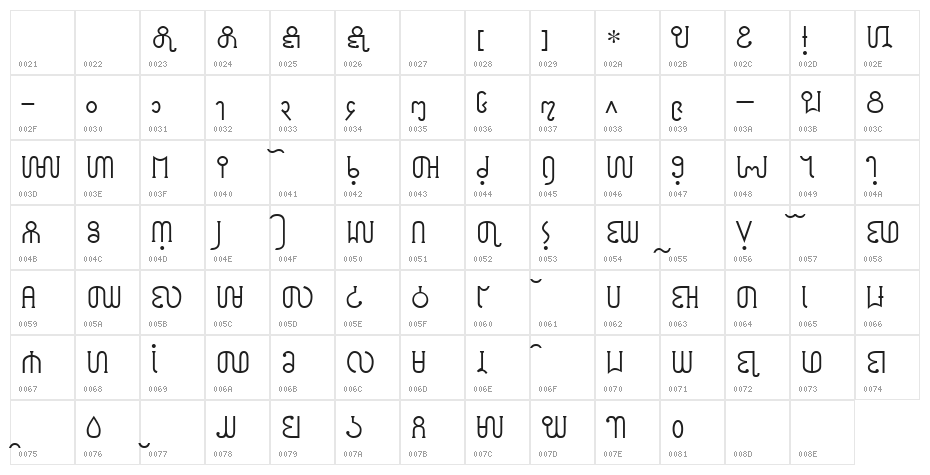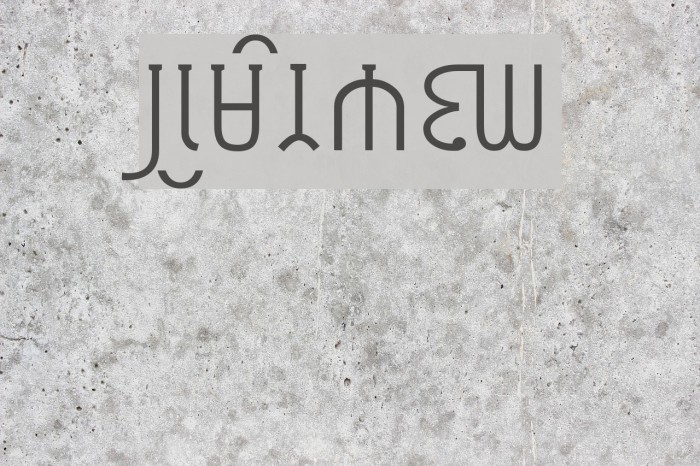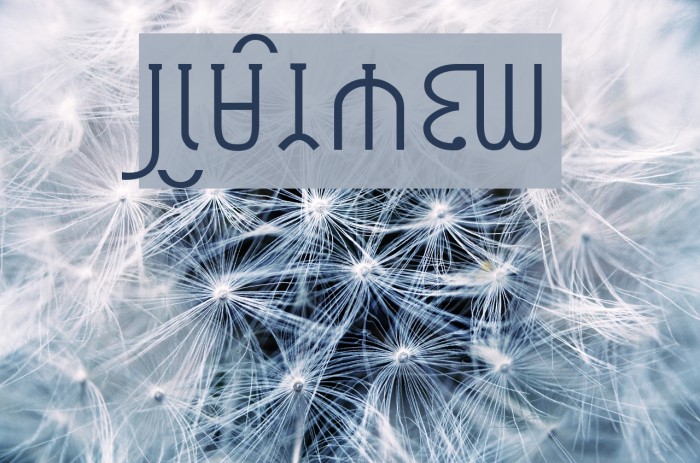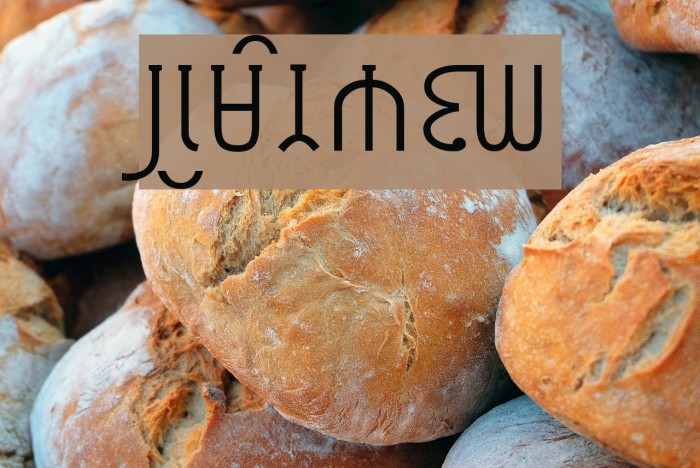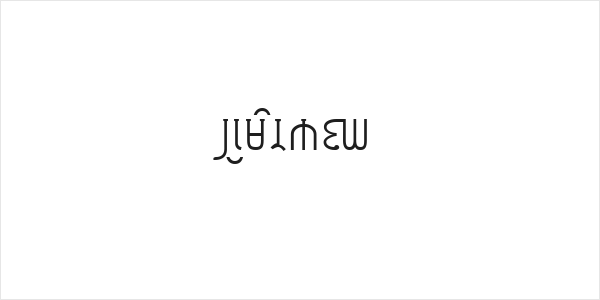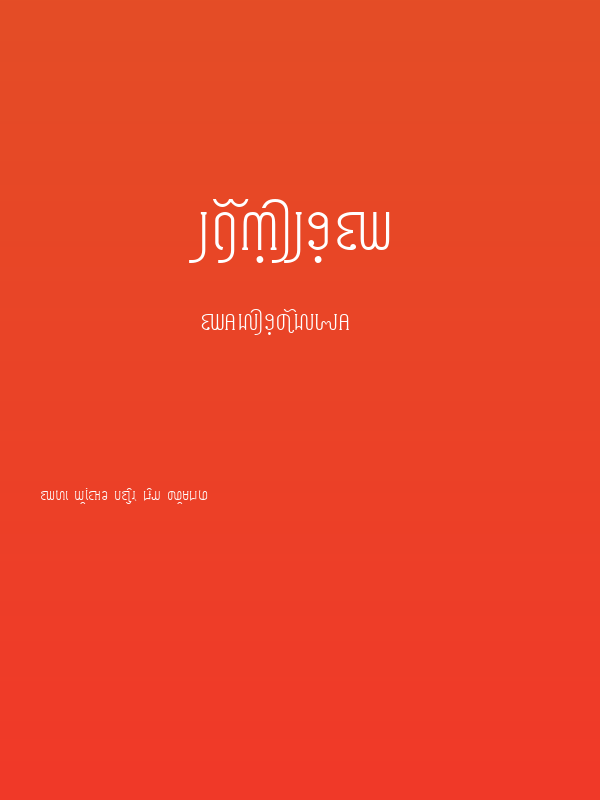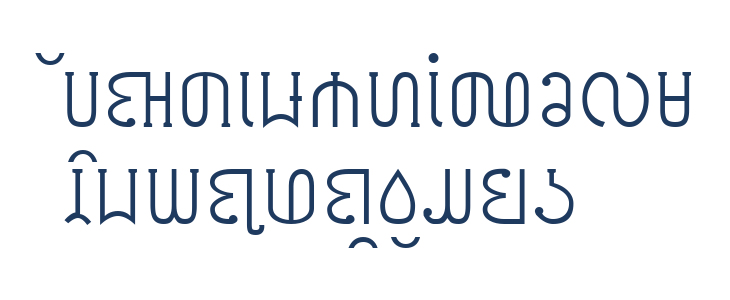
NewmongT Font
NewmongT Description
This font features a unique and decorative style, characterized by its intricate and artistic letterforms. Each character is crafted with a blend of curves and straight lines, creating a visually engaging and ornate appearance. The font exhibits a sense of elegance and sophistication, making it suitable for creative and artistic projects. The characters are evenly spaced, ensuring readability while maintaining its decorative flair. The font's design is reminiscent of traditional calligraphy, yet it incorporates modern elements that give it a contemporary twist.
| Use Case | Logos, Invitations, Posters |
| Proposed Projects | Ideal for artistic projects, invitations, posters, and branding that require a touch of elegance and creativity. |